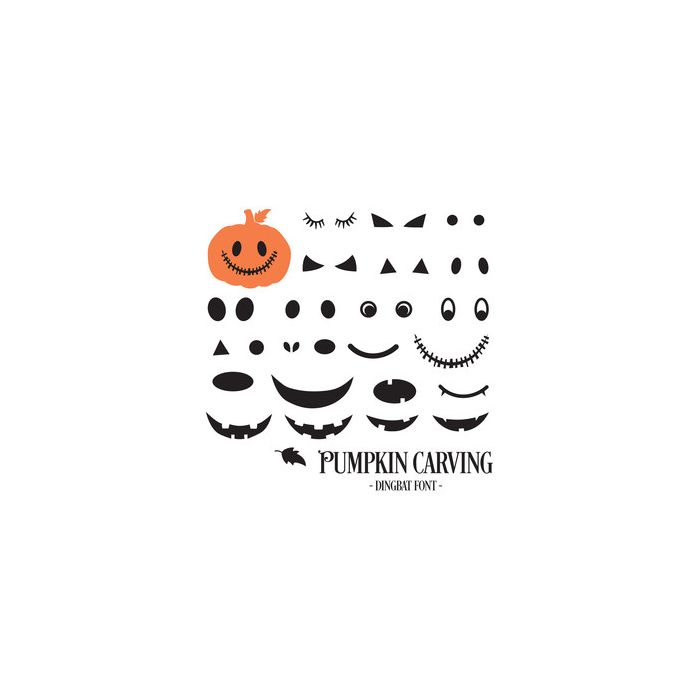
Make your own Halloween pumpkin with 25 different Pumpkin features and a base pumpkin shape, mix and match to create lots of unique faces! Contains 26 hand drawn elements, all allocated to upper and lowercase letters and accessible via the glyphs panel / character map.